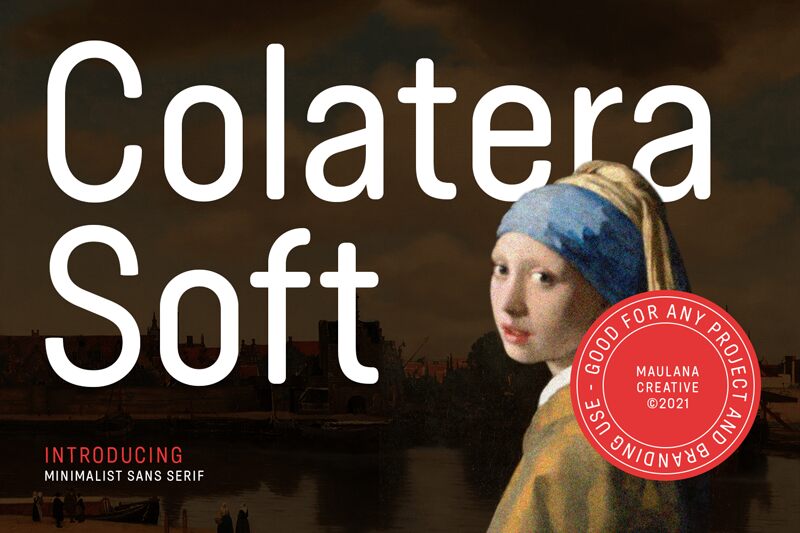
Colatera Soft
Colatera Soft is a bold, round sans serif typeface designed by Maulana Creative. Its unique style makes it a great choice for projects that need a modern, professional look such as posters, logos, and website headers.